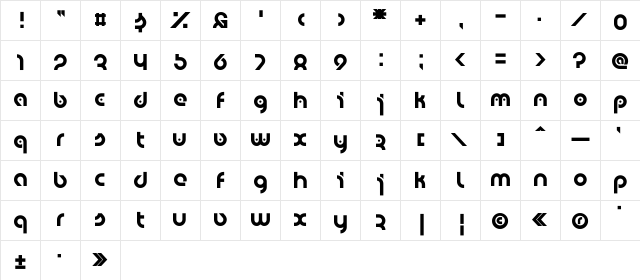
Complete eyelevation pro glyph index. Displaying only characters natively supported by eyelevation pro font.
eyelevation pro is a composed and adaptable typeface that performs quietly and consistently across a wide range of design contexts.